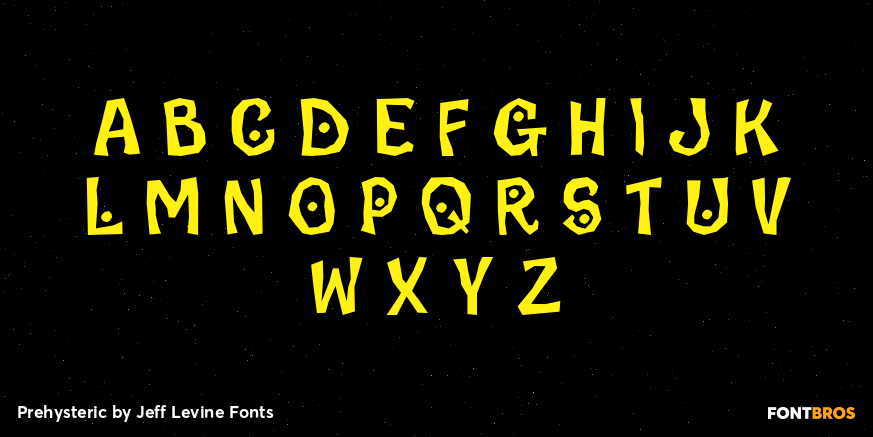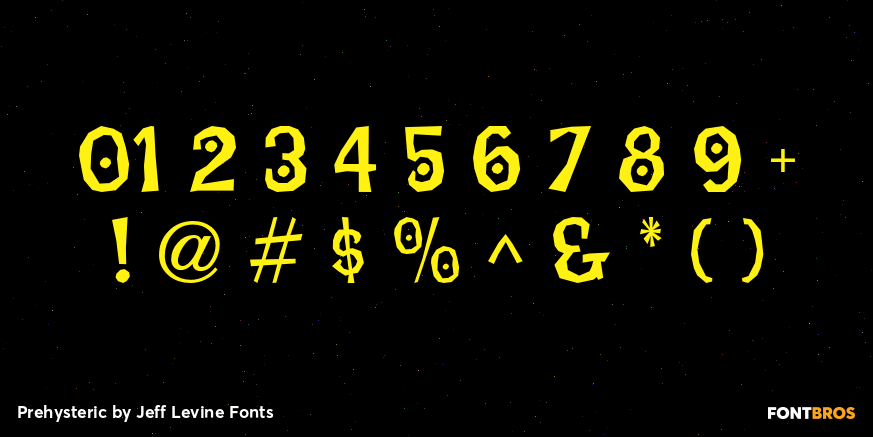
Prehysteric
Prehysteric JNL is the right font for cave dwellers, forest denizens or Cro-Magnon artists… it rocks! Font Styles:
Prehysteric by Jeff Levine Fonts